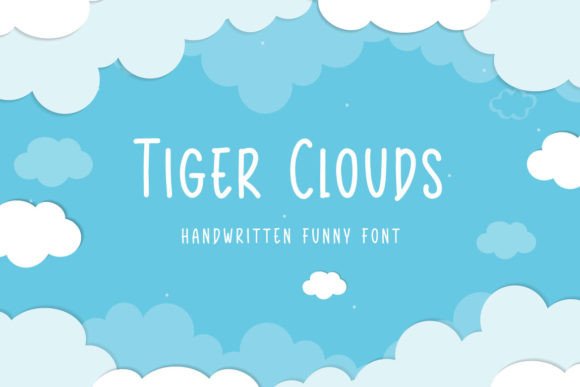
Welcome to the whimsical world of Tiger Clouds, an extraordinary script font that captivates hearts with its playful handwritten charm. Designed by the talented Mightyfire, Tiger Clouds is not just a font; it's an invitation to unleash your creativity and embark on a typographic adventure like no other.
Immerse yourself in the captivating allure of Tiger Clouds and discover a font that brings life to your words. Its dynamic strokes dance across the page, evoking a sense of joy and whimsy that will leave a lasting impression on your audience. Whether you're a seasoned graphic designer or a creative enthusiast, Tiger Clouds will elevate your projects to new heights of visual appeal.
With Tiger Clouds, you hold the key to unlocking endless creative possibilities. This versatile font lends itself seamlessly to a myriad of design applications. Whether you're crafting a playful comic book, designing eye-catching posters, or creating engaging social media content, Tiger Clouds will add a touch of magic to your work.
Step into the realm of imagination and let Tiger Clouds guide you on a creative journey. Its charming personality will infuse your designs with a sense of warmth and delight. Whether you're crafting a whimsical book title, designing an unforgettable logo, or creating a captivating school project, Tiger Clouds will make your ideas shine.